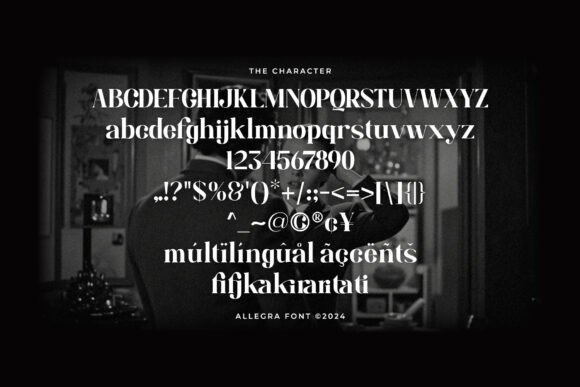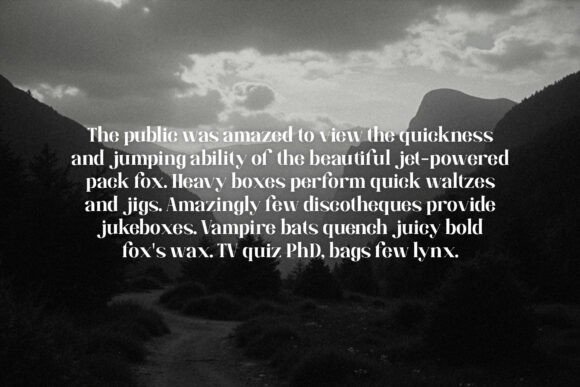
Introducing the Allegra Font: Elevate Your Design with Elegance and Modern Flair
In the world of typography, fonts play a crucial role in conveying messages, expressing creativity, and capturing the essence of a brand. For designers and crafters seeking a sophisticated and impactful font, the Allegra font stands out as an exceptional choice. This stunning display serif font seamlessly blends elegance with modern flair, making it perfect for headlines, logos, editorial design, and more.
The Allegra Font: A Symphony of Elegance and Modernity
The Allegra font boasts bold, high-contrast letters that create a powerful visual impact. Its distinctive design makes it an excellent option for designers looking to add a touch of sophistication to their projects. Whether you’re working on a luxury brand’s logo, a fashion magazine’s cover, or a high-end product’s packaging, the Allegra font is sure to elevate your design.
Key Features of the Allegra Font
The Allegra font comes with a range of features that make it a versatile and practical choice for designers. Some of its key features include:
- Uppercase: The Allegra font includes a comprehensive set of uppercase letters, perfect for creating bold and eye-catching headlines.
- Lowercase: The font also features a set of elegant lowercase letters, ideal for body text, descriptions, and other design elements.
- Numeral & Punctuation: The Allegra font includes a range of numerals and punctuation marks, ensuring that you have everything you need to create professional-looking designs.
- Ligatures: The font features ligatures, which allow for more creative and visually appealing typography.
- Multilingual accents: With support for multilingual accents, the Allegra font is perfect for designers working on international projects or those who need to create content in multiple languages.
Why Choose the Allegra Font?
So, why should you choose the Allegra font for your next design project? Here are just a few reasons:
- Elegance and sophistication: The Allegra font exudes elegance and sophistication, making it perfect for high-end brands, luxury products, and editorial design.
- Versatility: With its range of features, including uppercase, lowercase, numerals, and punctuation, the Allegra font is versatile enough to use in a variety of design applications.
- Modern flair: The font’s modern design ensures that your designs will look fresh and contemporary, even in traditional or classic settings.
Tips for Using the Allegra Font
To get the most out of the Allegra font, here are a few tips:
- Use it sparingly: The Allegra font is bold and attention-grabbing, so use it sparingly to avoid overwhelming your design.
- Pair it with complementary fonts: Pair the Allegra font with complementary fonts to create visual interest and add depth to your design.
- Experiment with different sizes and colors: Don’t be afraid to experiment with different sizes and colors to find the perfect combination for your design.
| Author | Ariya Works Studio |
The Allegra font is a stunning display serif font that combines elegance with modern flair. Its bold, high-contrast letters create a powerful visual impact, making it perfect for headlines, logos, editorial design, and more. With its range of features, versatility, and ease of use, the Allegra font is an excellent choice for designers and crafters seeking to elevate their designs.